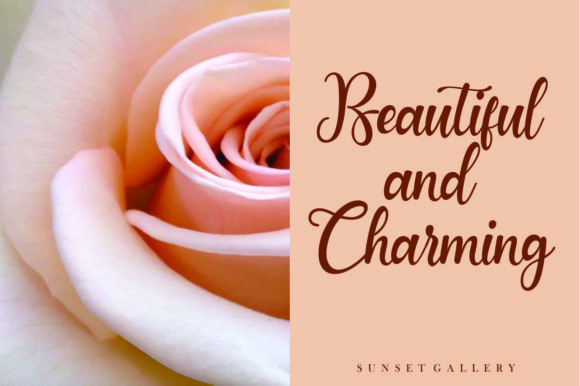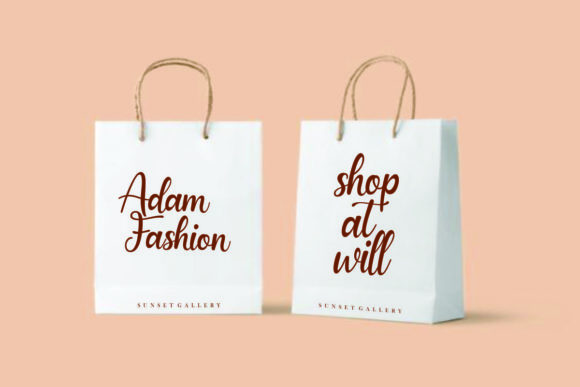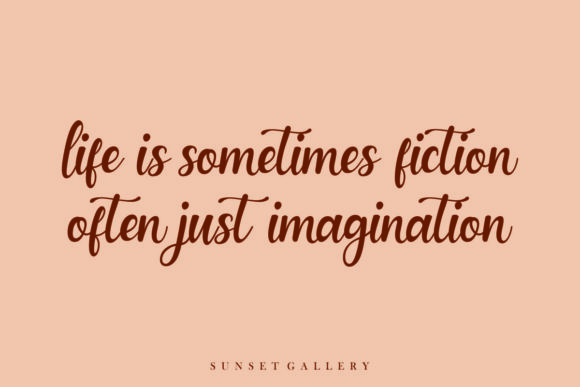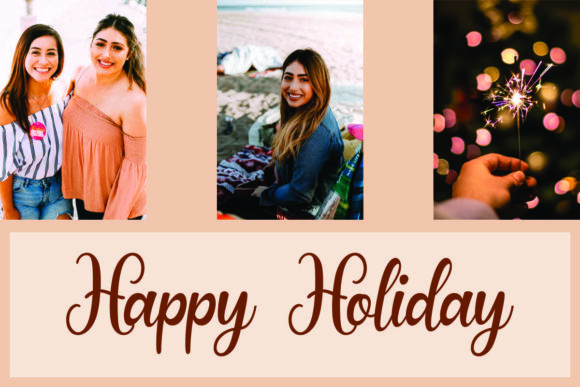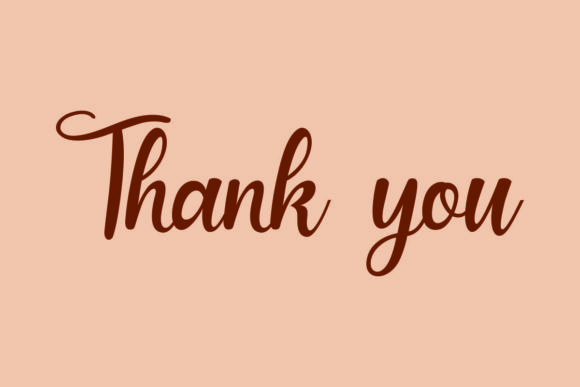
The Charm of Hey Kans Font: A Designer’s New Best Friend
I’ll never forget the time I was working on a craft project for a client, and I just couldn’t seem to find the right font to match the playful, handmade vibe they were going for. I scrolled through page after page of Google Fonts, but nothing seemed quite right. That was until I stumbled upon Hey Kans Font – a beautiful, classic handwritten font that instantly elevated my design.
An Honest Review of Hey Kans Font
- ✨ Simple and easy to use: Hey Kans Font is a no-fuss addition to any design project.
- ✅ Beautiful handwritten aesthetic: The font has a warm, personal feel that’s perfect for crafts, invitations, and more.
- 💫 Highly versatile: Pair it with bold colors, patterns, or textures for a unique look.
While Hey Kans Font is an excellent choice for many projects, there are a few things to keep in mind:
- ⚠️ Limited character set: As a handwritten font, Hey Kans may not have all the special characters or glyphs you need for more complex designs.
- 🤔 May not be suitable for body text: Due to its decorative nature, Hey Kans Font is best used in moderation – it’s not ideal for large blocks of text.
The Story Behind Hey Kans Font
While the origins of Hey Kans Font are shrouded in mystery, it’s clear that the designer was inspired by the beauty of handwritten communication. Perhaps they grew up watching their grandmother write letters with flair and precision, or maybe they fell in love with the imperfections of handwritten notes. Whatever the inspiration, Hey Kans Font captures the warmth and personality of handwritten text.
Q: What type of projects is Hey Kans Font best suited for?
A: Hey Kans Font is perfect for craft projects, invitations, social media graphics, and any design that needs a personal touch.